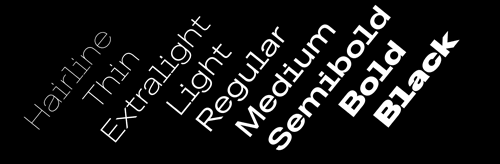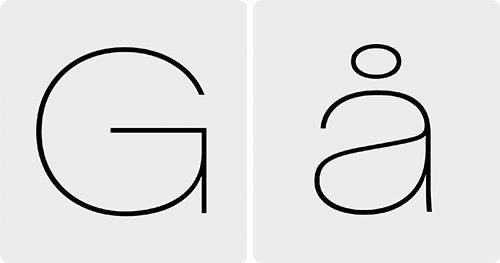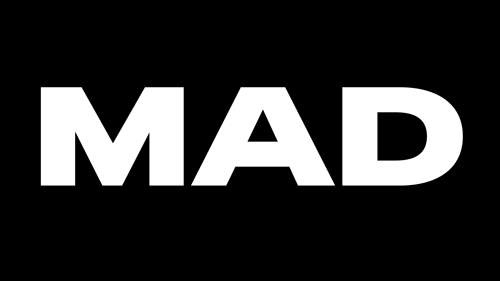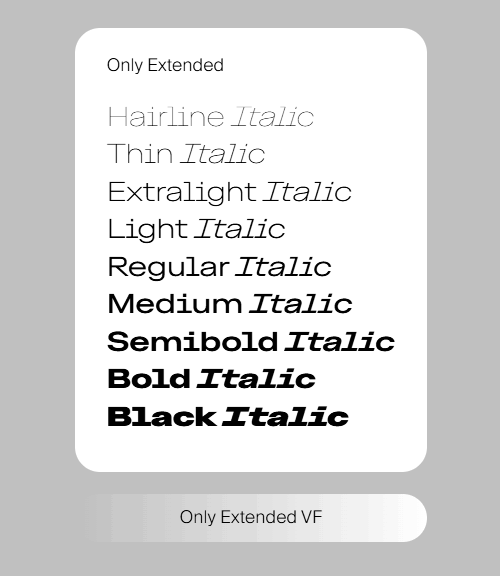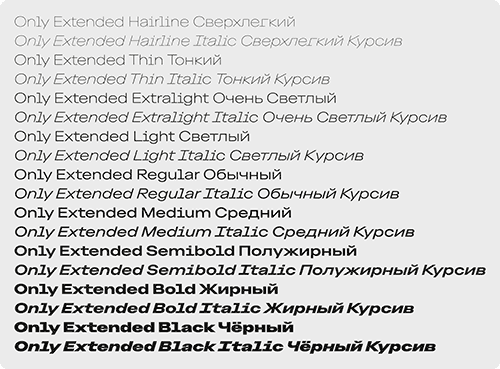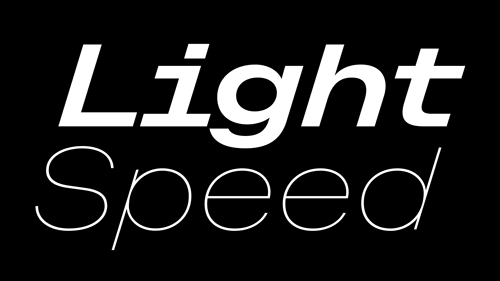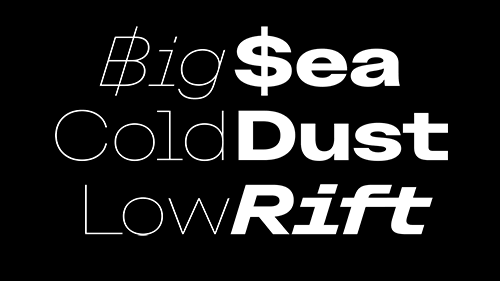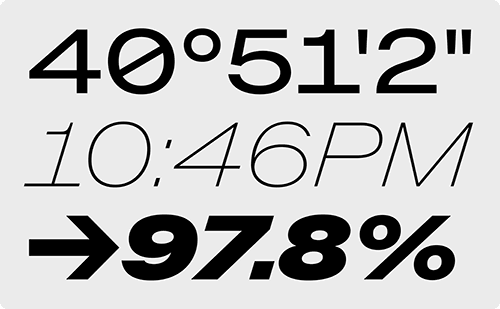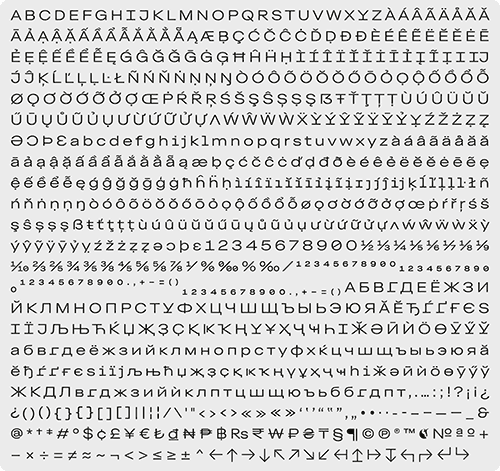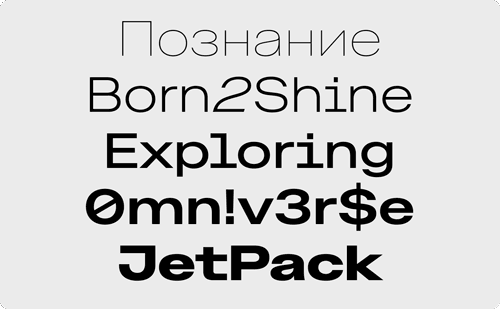
• Only Extended is available in 9 weights with matching italics, ranging from Hairline to Black. Packed with Cyrillic, Only also supports an extensive Latin character set, offering native supports for languages as diverse as Vietnamese, Yoruba, Baoulé and many more. First and foremost, Only is… Extended! Rather than starting with the artificial expansion of a standard-width typeface, Only raised a challenge and a question: How would it look if it was designed with the initial goal of being extended only? Where would be the sweet spot for such a typeface to look neither horizontally stretched nor vertically squeezed? This approach led to the creation of Only Extended and induced most of its design choices and unique letter proportions.
• To achieve these design goals, radical choices were made such as the introduction of some lettershapes inspired by the monospace fonts tradition: to the usually narrowest letters like uppercase ‘I’ and lowercase ‘i’, ‘j’ and ‘l’ were given some slab serifs to make them wider and balance the overall rhythm of the text. The same principle was applied to uppercase letters ‘Y’ and ‘J’ and CSTM Fonts, who took care of the Cyrillic design, also implemented that design feature on some of the Cyrillic letters.
• Only Extended is infused with Swiss Typefaces’ design DNA. Therefore, it is a blend of the two opposite ends of the Sans Serif genre, bearing inspirations from Geometric Sans – see particularly the monolithic capitals – while staying faithful to its Grotesque roots, with typical lettershapes and slightly tapering connections between curves and stems.
• Another distinctive trait of Only Extended is its super short ascenders and descenders. It makes the typefaces stocky, enhancing its horizontality. Conveniently, it is allowing dense text setting with minimal line gaps, perfect for a pull quote or an editorial deck.
• In addition to the usual static styles, Only Extended also comes in a Variable Font format. Simply labeled VF, these powerful files not only contain all existing static styles but come with extra options, allowing smooth fine-tuning using the Weight axis parameter.
• With Swiss Typefaces’ design attitude at its core, Only is truly versatile and definitively not restricted to use cases traditionally associated with extended designs.
• Its monospace-like design and unique aesthetic proposition place it outside of today’s typical sans-serif offer. Only Extended’s ultramodern geometry combined with a Swiss grotesque spirit are making it a new and distinctive addition to the design landscape.